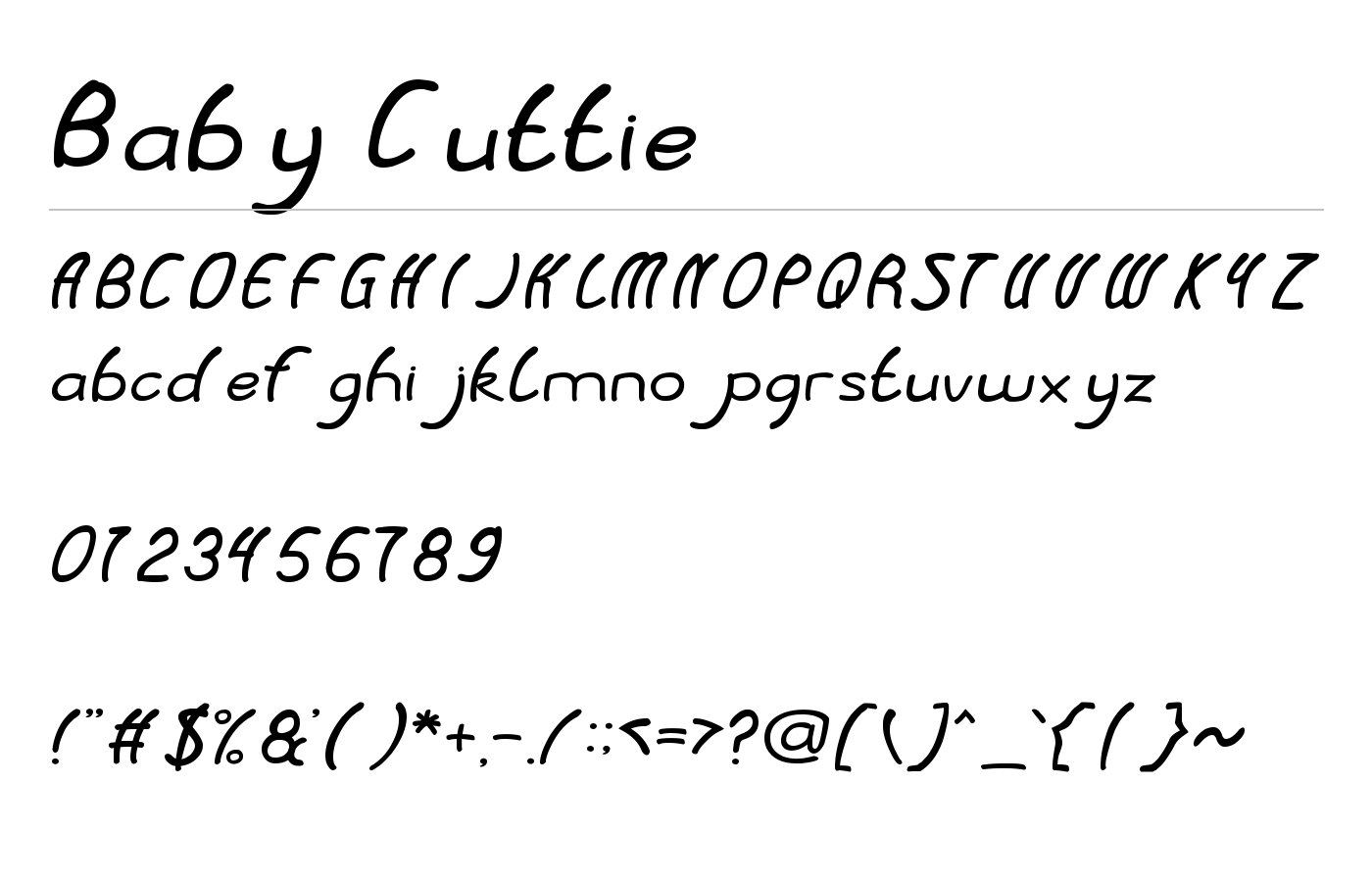
Baby Cuttie is a charming, playful script font with smoothly rounded strokes that feel friendly and approachable. Its casual, handwritten style with moderate contrast and slightly condensed letterforms makes it perfect for designs aimed at children, informal branding, or any project seeking a warm, personal touch. This font works well in logos, invitations, and packaging where a fun and inviting vibe is needed.
Baby Cuttie Font
About Baby Cuttie Font